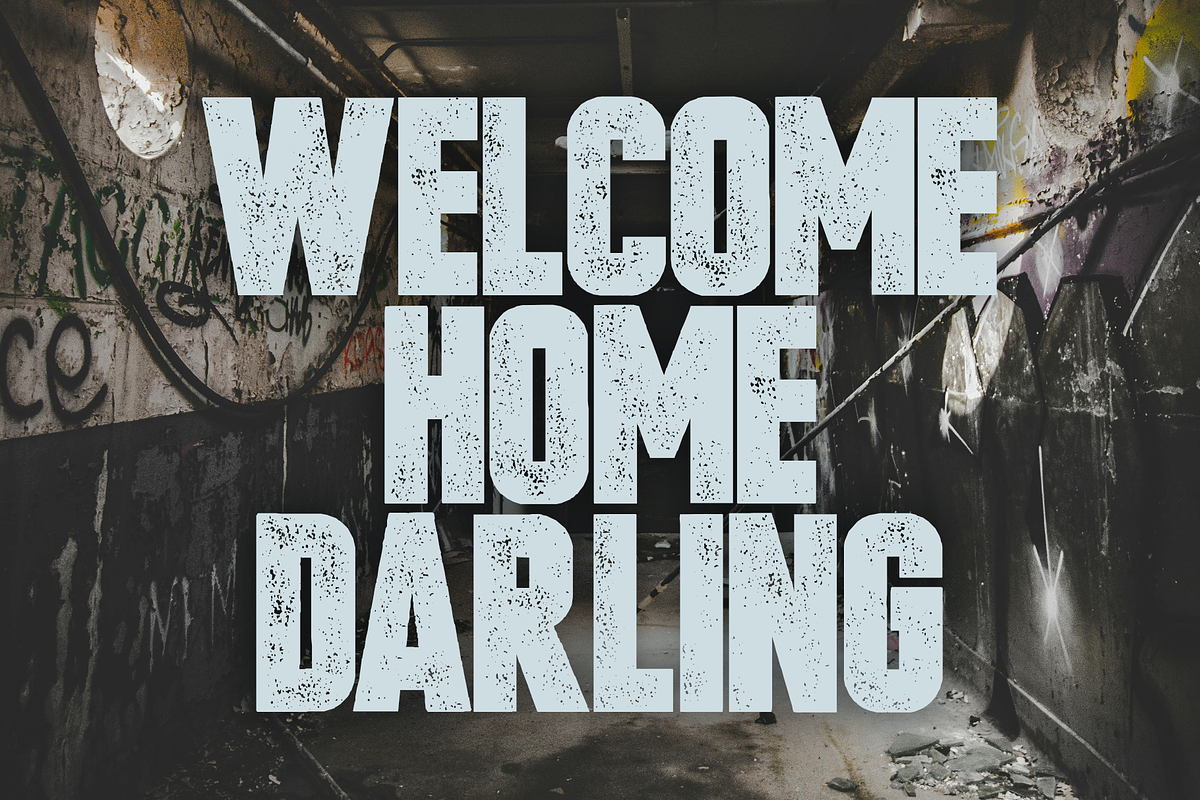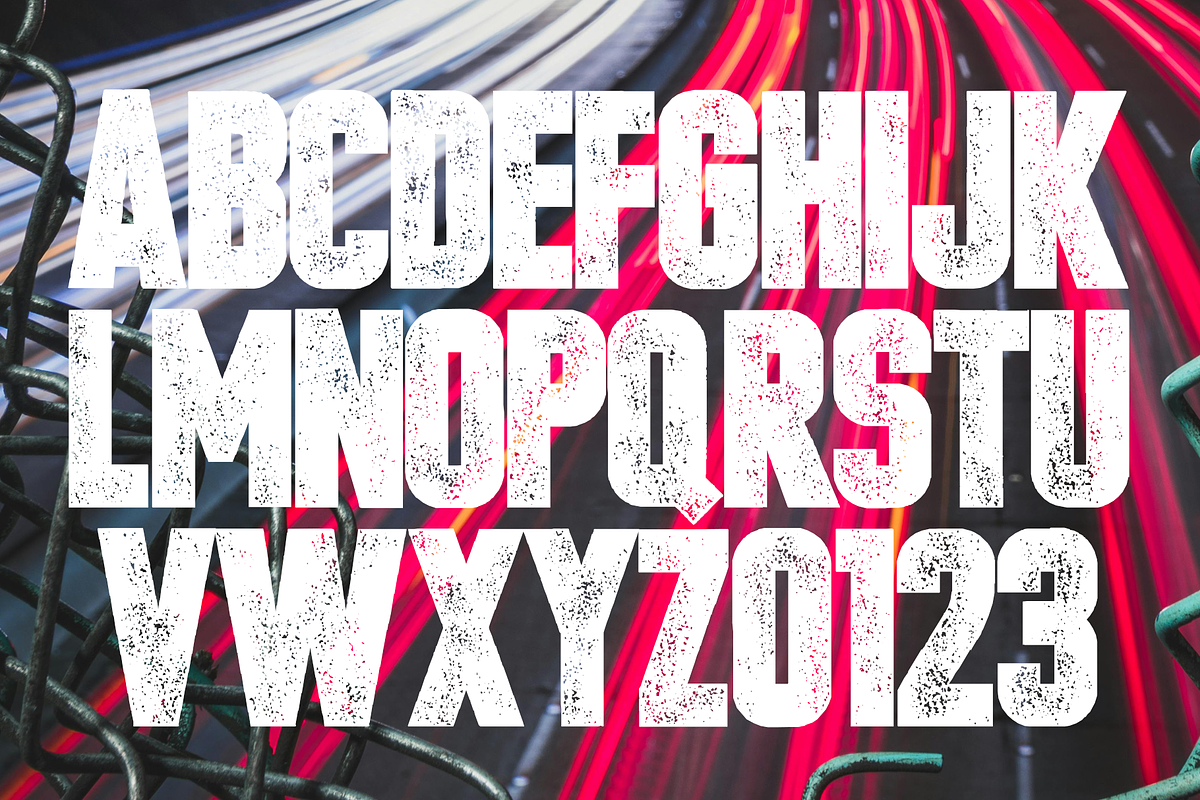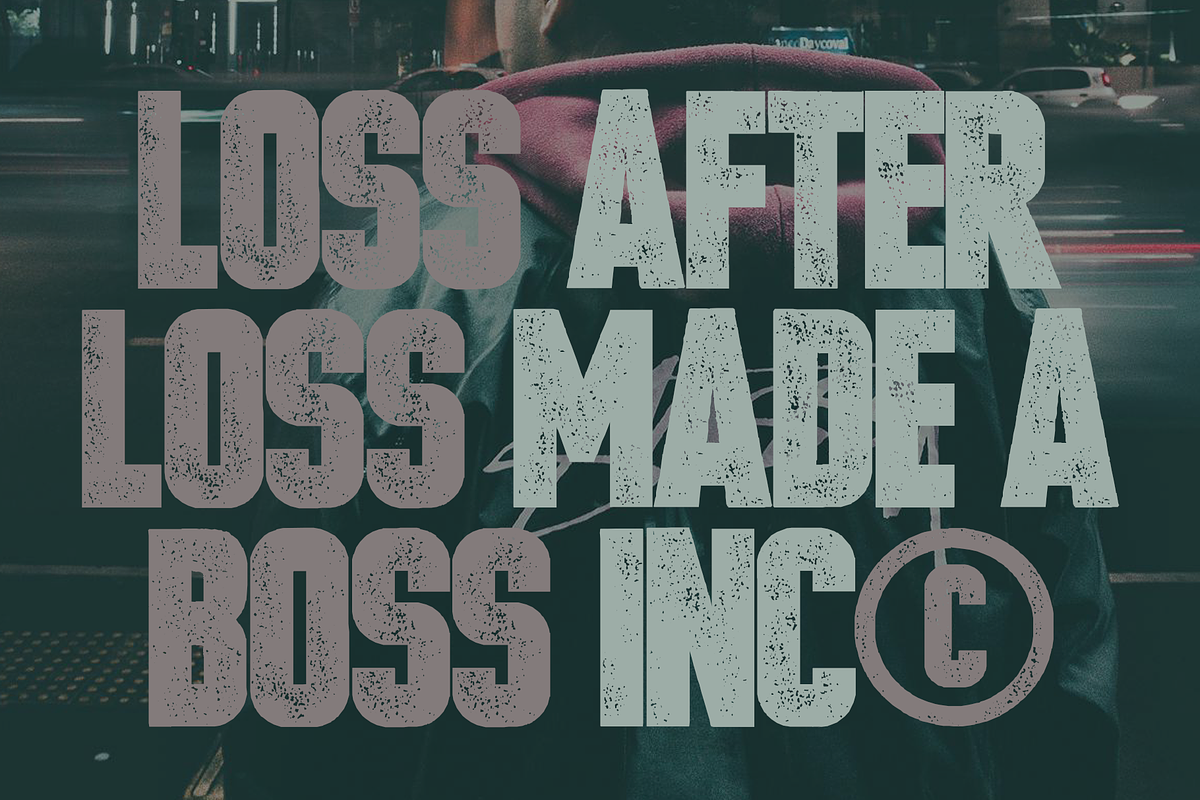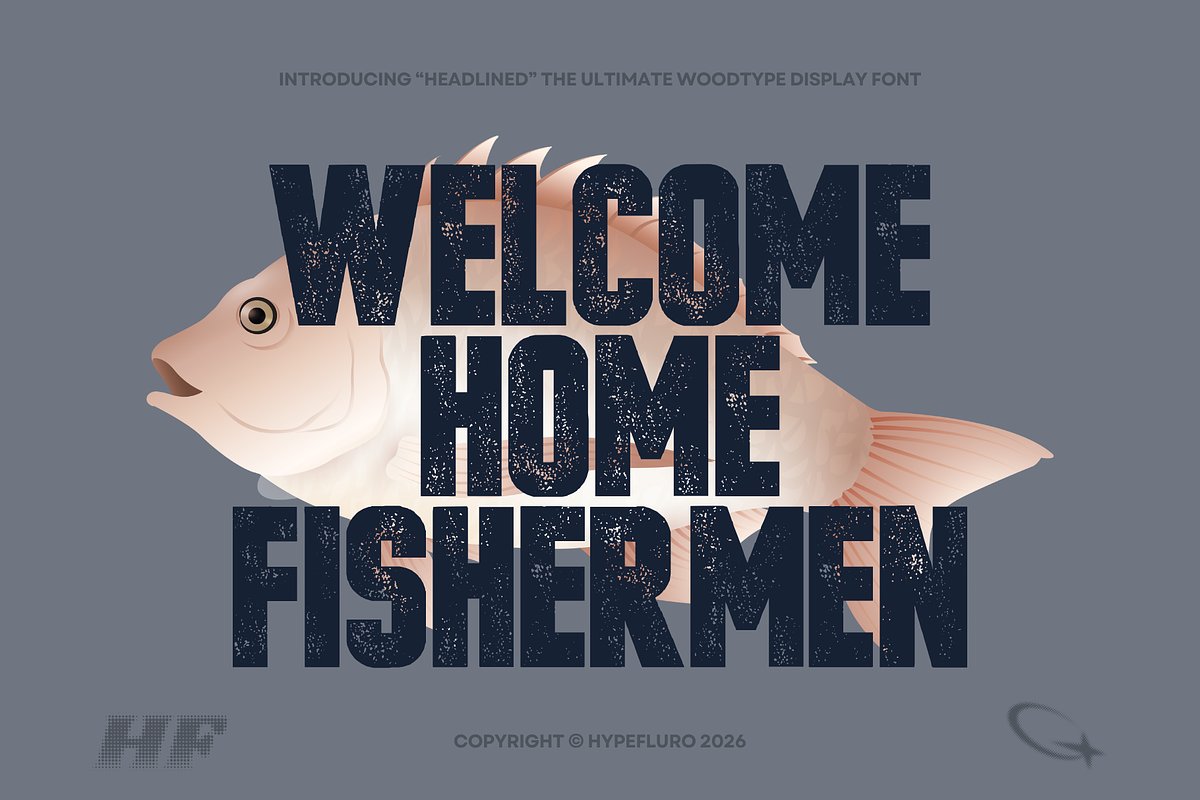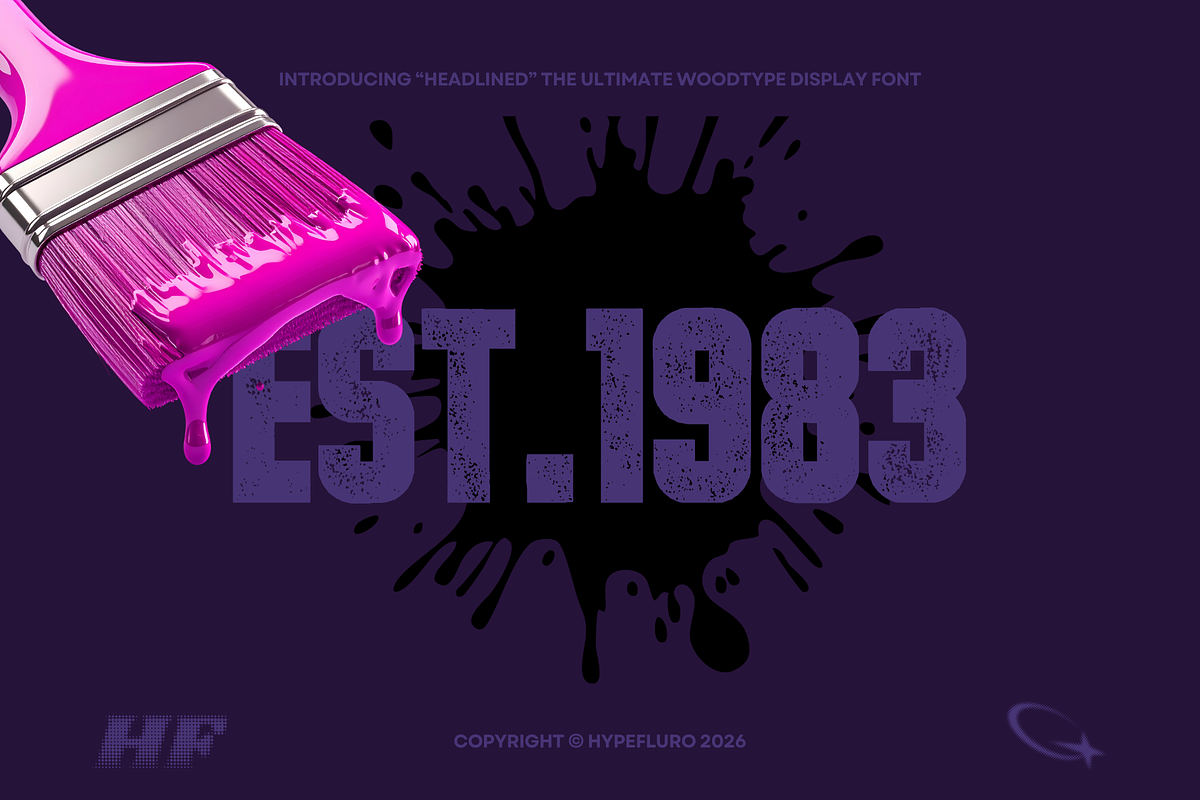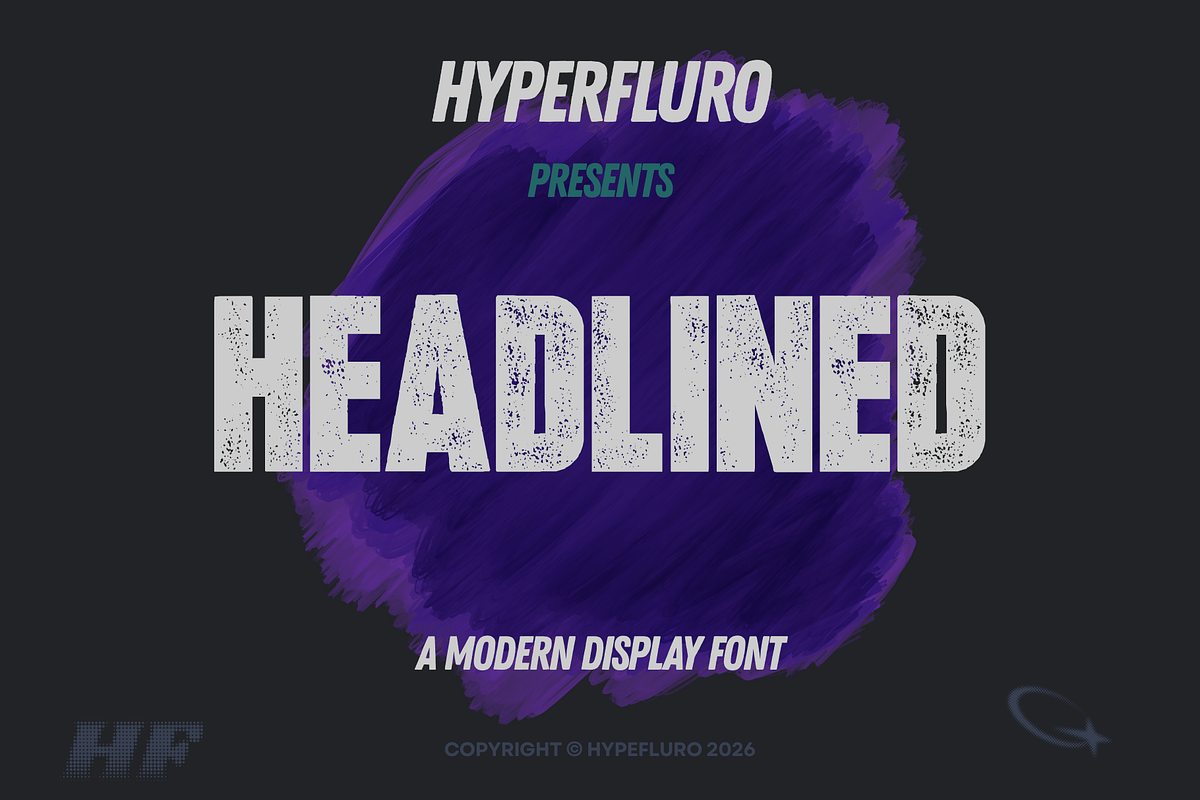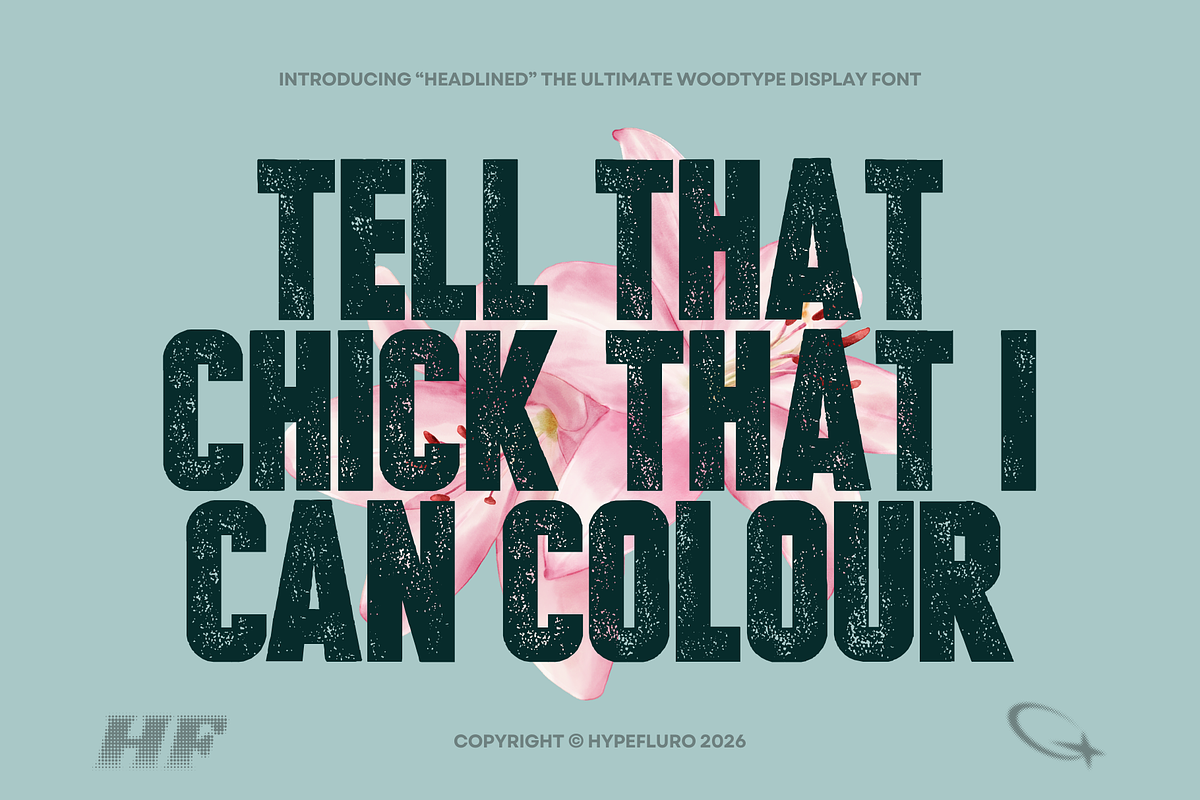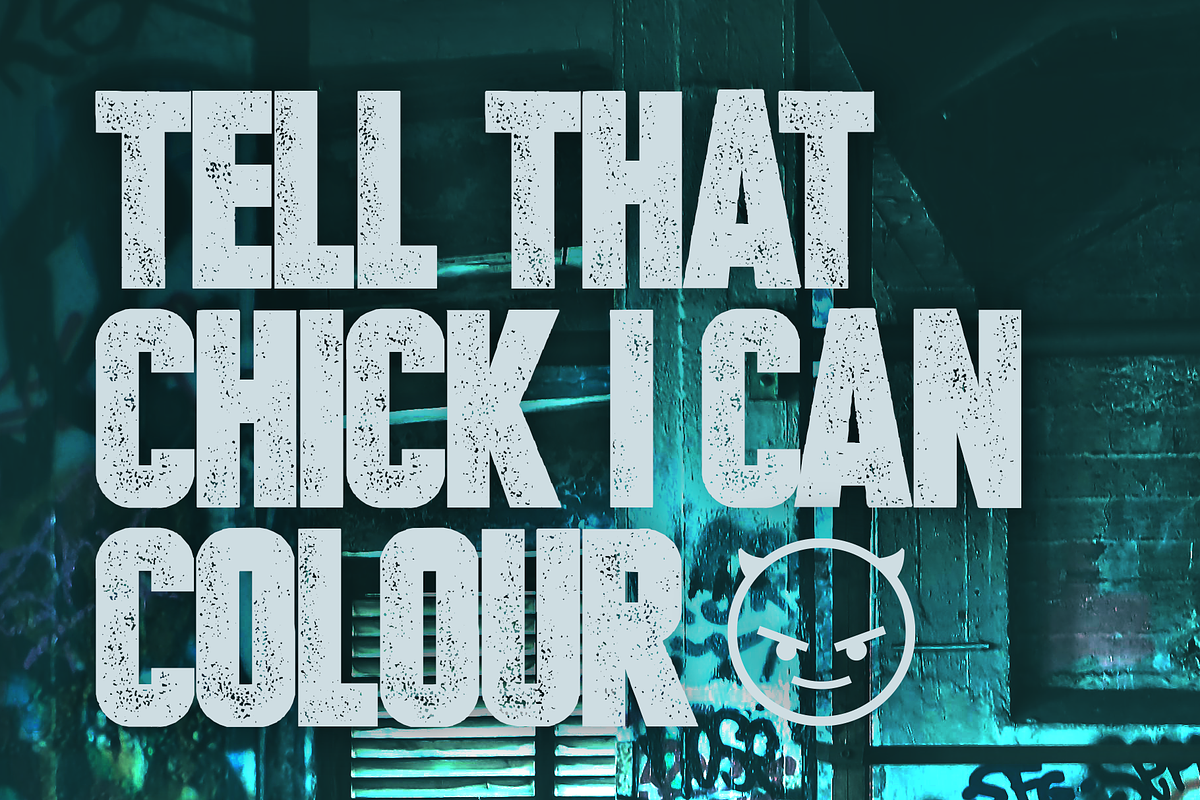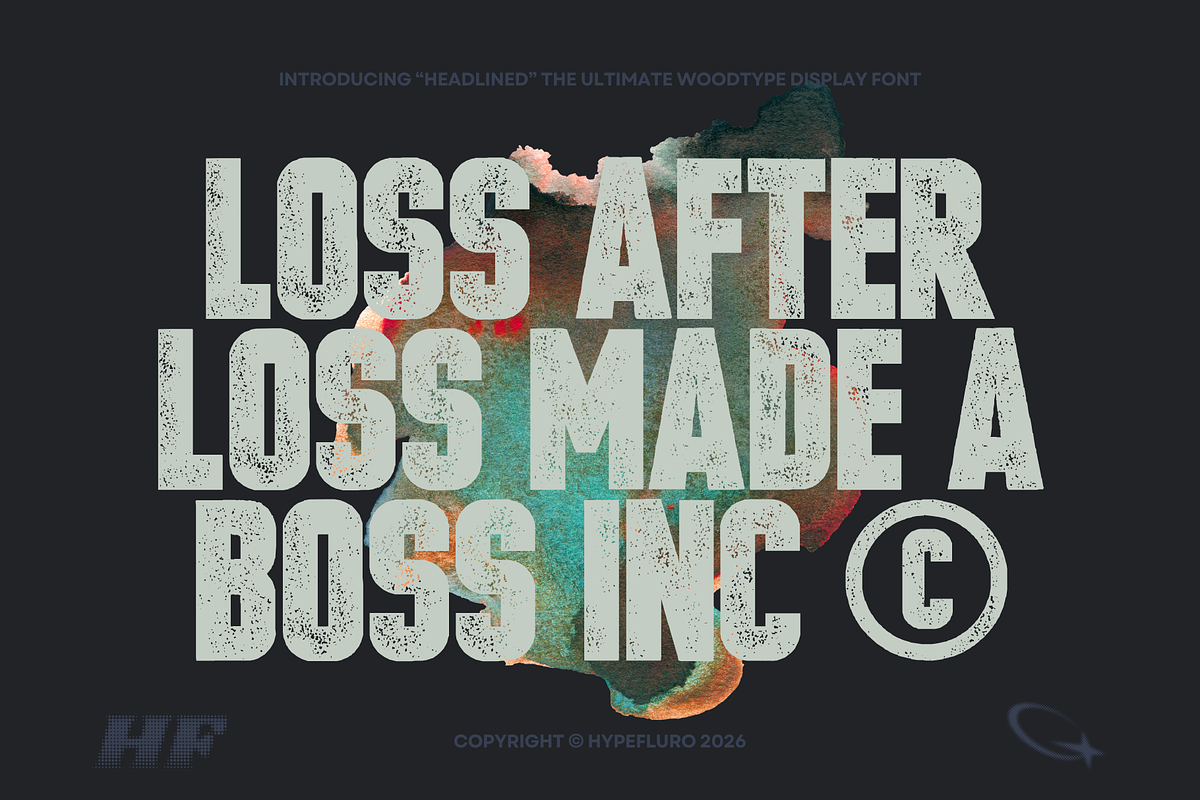
HEADLINED 2 WOODTYPE FONTS
Headline Font: Make Your Mark
Inspired by bold, stencilled spray-paint messages, Headlined is a powerful typeface that refuses to be ignored. Whether amplifying the voices of the oppressed or echoing the narratives of power, this font demands attention. Its bold presence is softened by a subtle fade, hinting at age, experience, and hard-earned wisdom.
Want to leave a lasting impression? Make your statement with Headlined a font designed to stand out and spark change.
For a cleaner, sharper finish, explore Headlined Solid the same commanding presence with a crisp, polished edge.